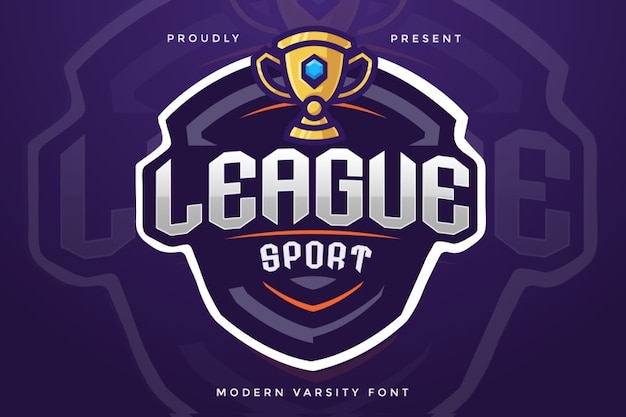
League Sport
League Sport Font
League Sports is a bold, dynamic font designed for esports and gaming enthusiasts. Its sharp, futuristic lines and tech-inspired style make it perfect for team logos, streaming overlays, and cybersport branding. With a competitive and modern edge, League Sports captures the energy and excitement of the gaming world, making your designs stand out in the arena.